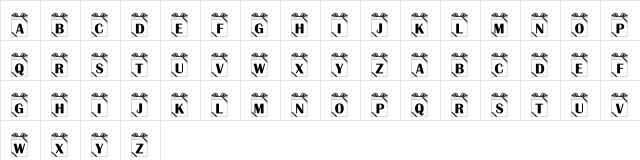
101! Gift Regular
Design Context for 101! Gift Typeface
101! Gift is a composed and adaptable typeface that performs quietly and consistently across a wide range of design contexts.